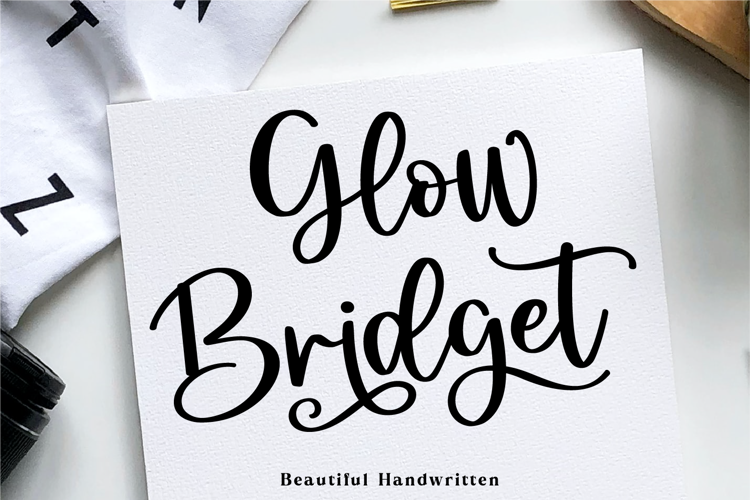
Glow Bridget Font
About Glow Bridget Font
Glow Bridget - Beautiful Handwritten
Glow Bridget is beautiful handwriting featuring a touch of the base that is varied, modern, and elegant. Can be used for various purposes, such as headings, signatures, logos, wedding invitations, t-shirts, letterheads, signage, labels, news, posters, etc.
To make your designs look more natural and unique, glow bridge has an excellent selection of alternative ligatures and letters.